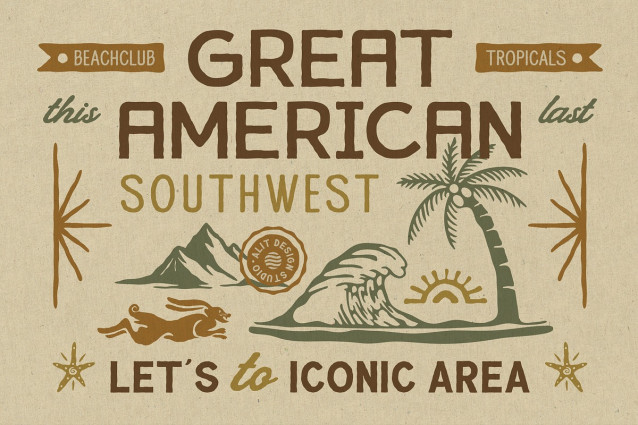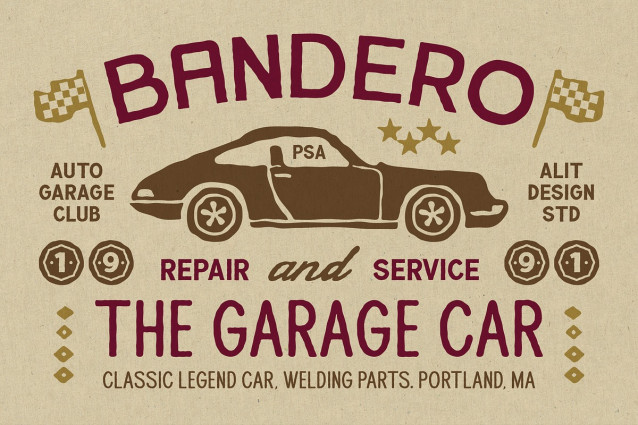
Palmera Island Thin Font
Palmera Island Thin Font a masterfully crafted rough-stamp typeface designed for those who breathe adventure. Inspired by the authentic textures of vintage hand-stamped graphics, this font family brings a raw, organic, and timeless feel to any creative project.
Whether you are designing for a tropical surf brand, a rugged outdoor adventure shop, or a trendy lifestyle boutique, Palmera Island provides that sought-after “human touch” that modern digital fonts often lack.
Palmera Island isn’t just a font; it’s a complete design toolkit. The Rough Stamp effect is meticulously detailed, mimicking the natural imperfections of ink on paper or wood. This gives your logos, t-shirts, and posters an instant heritage feel—as if they were printed in a small garage studio decades ago.